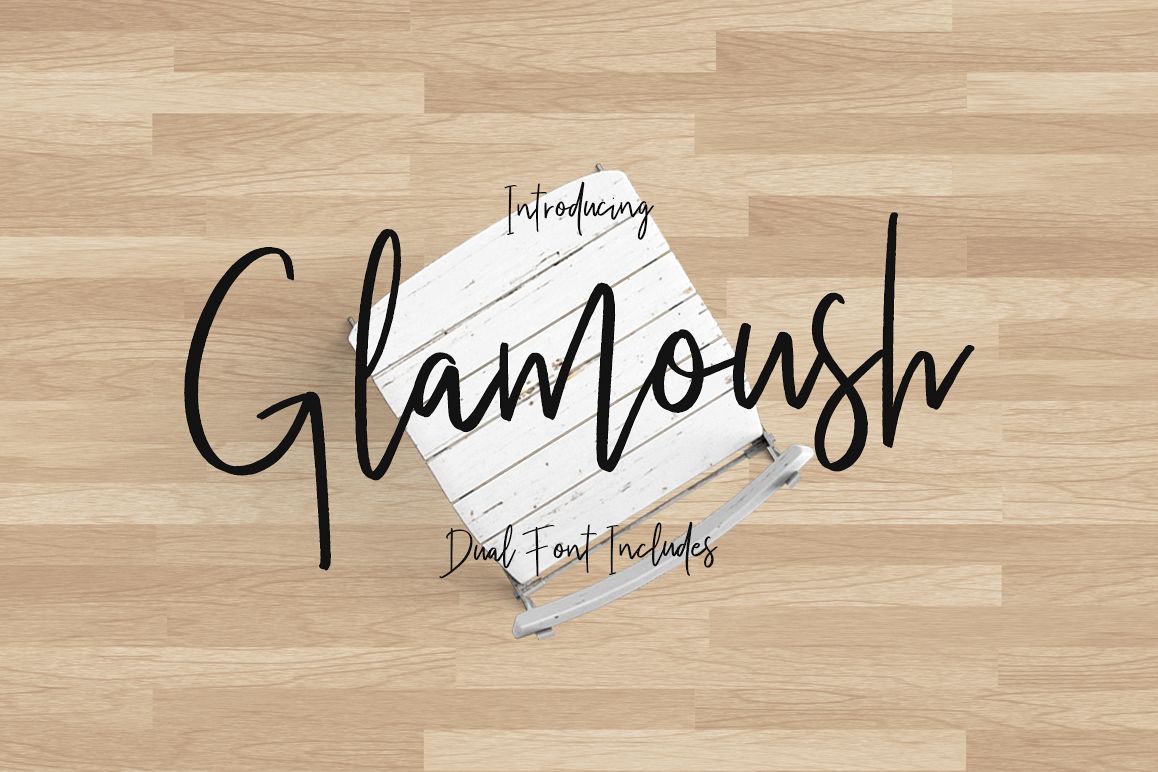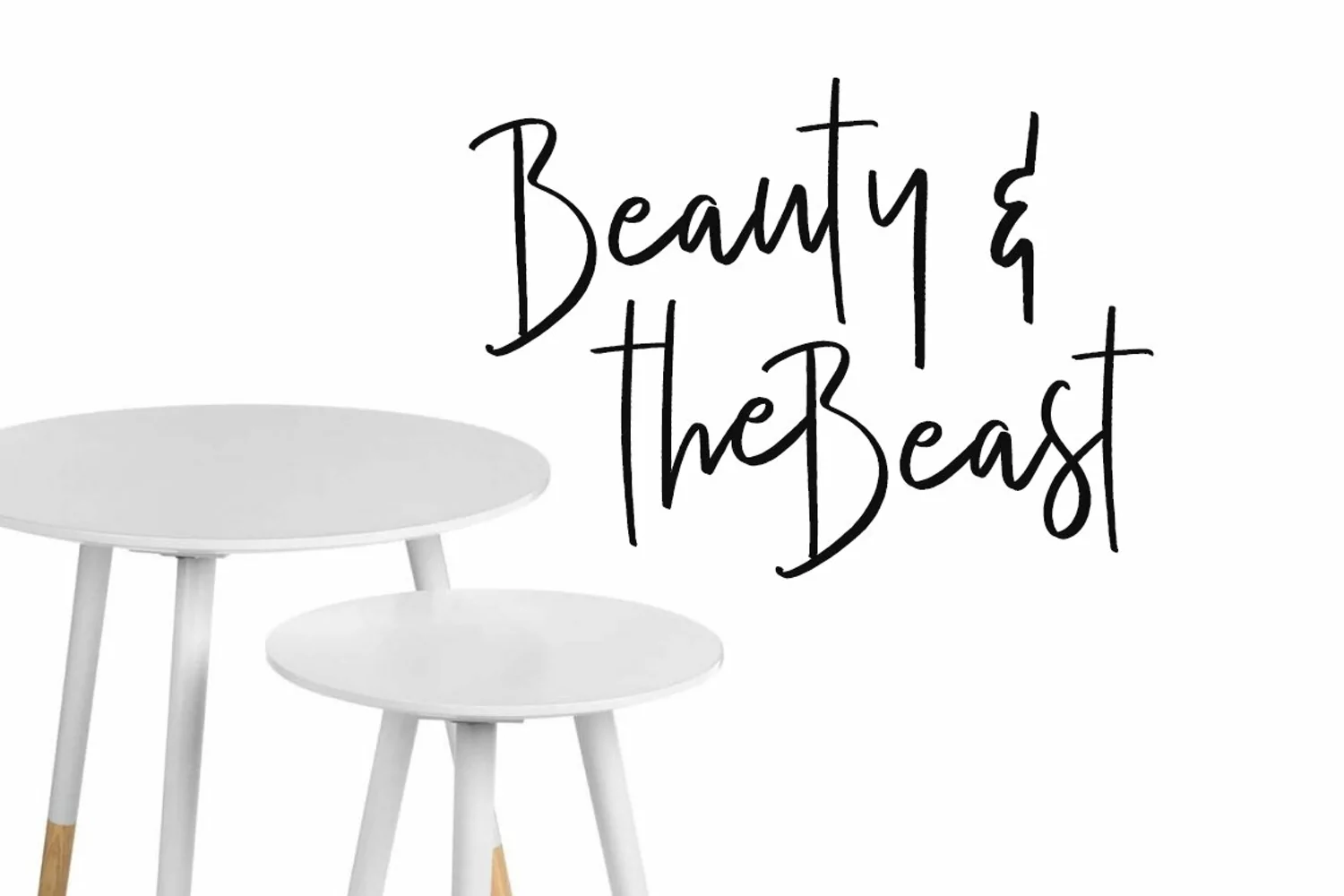
Glamoush Typeface
by Maulana Creative
Give your designs an authentic handcrafted feel. "Glamoush Typeface" is perfectly suited to stationery, logos and much more.